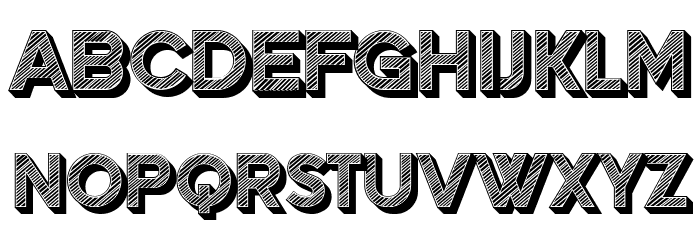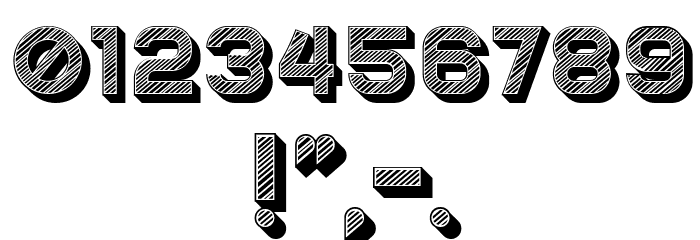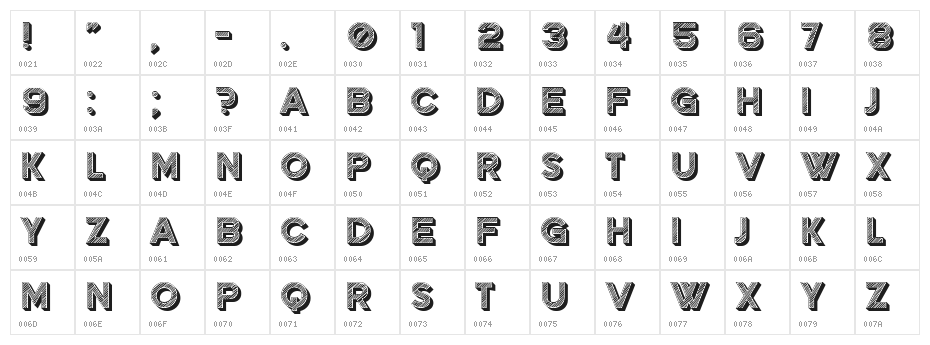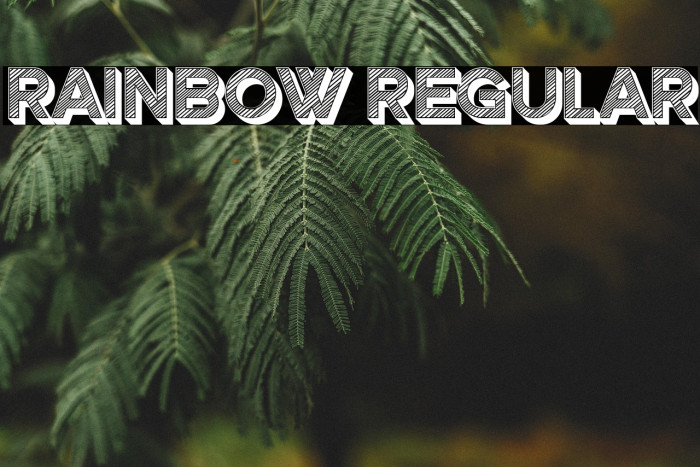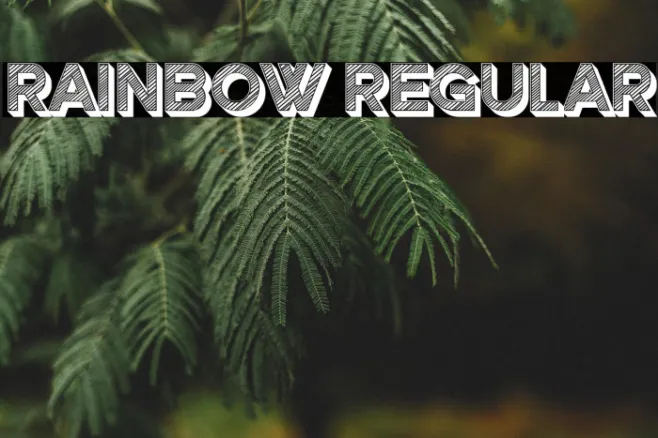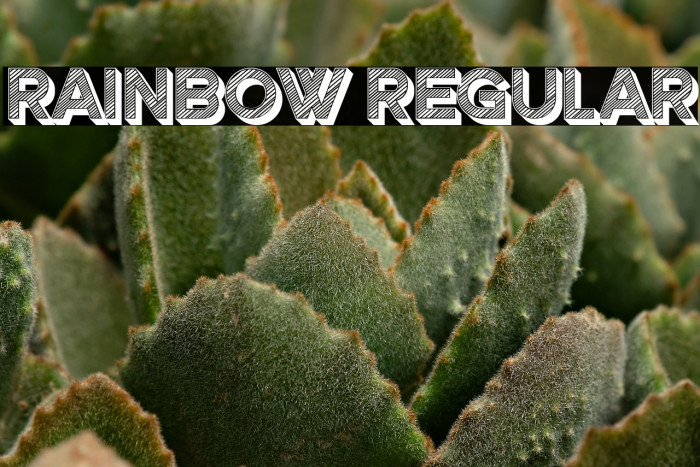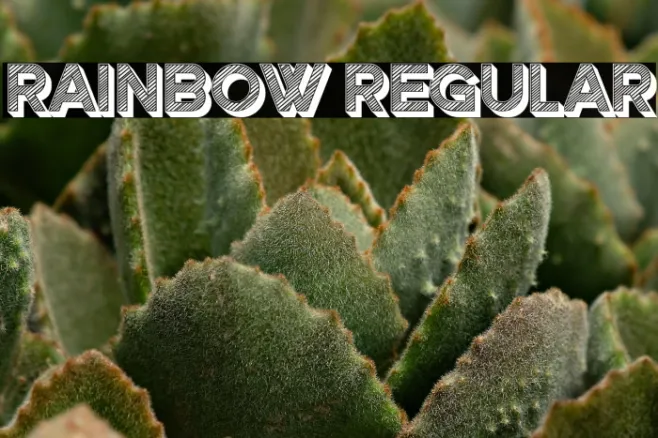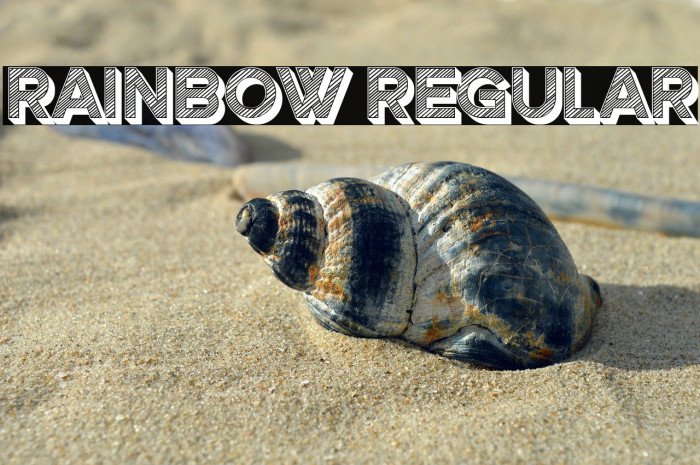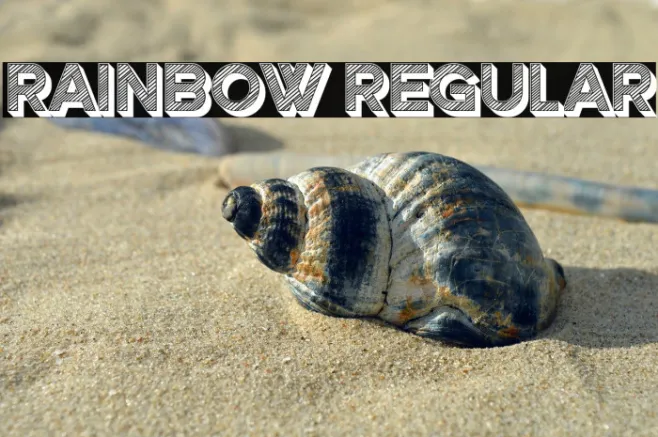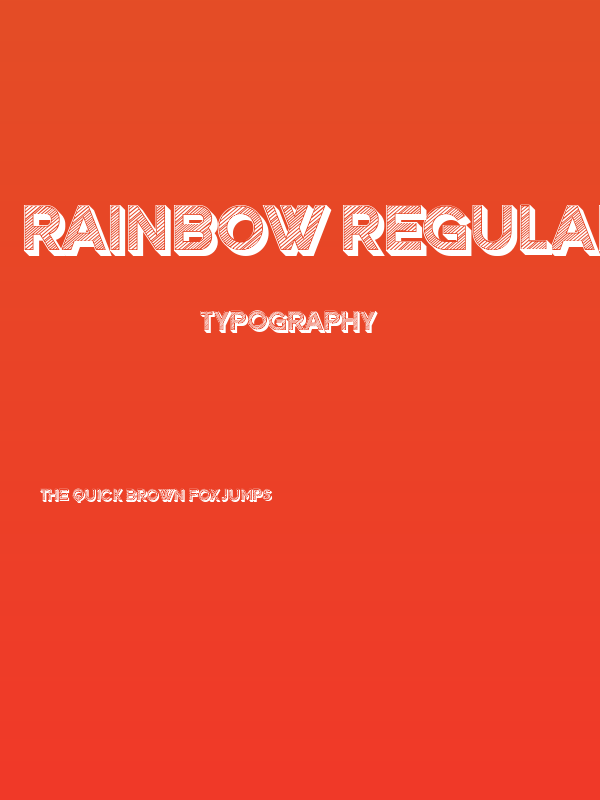
Rainbow Regular Font
This font features a bold, decorative style with a 3D effect created by diagonal hatching within each character. The uppercase letters are prominent and eye-catching, making them ideal for display purposes. The numbers and special characters maintain the same bold and textured appearance, ensuring consistency across all glyphs. The overall design is playful yet structured, with a modern twist on classic bold fonts. The diagonal lines add a sense of movement and depth, making the font stand out in any design.
A bold, decorative font with a 3D effect and diagonal hatching.
- Proposed Projects: Ideal for posters, headlines, logos, and any design needing a bold, eye-catching typeface.